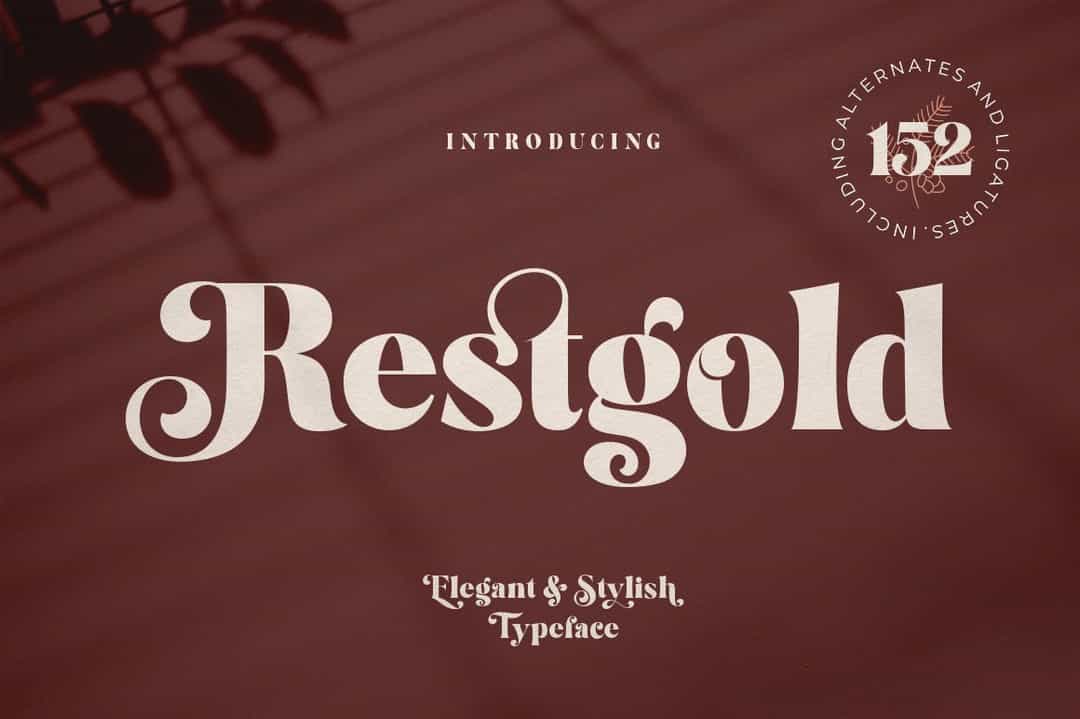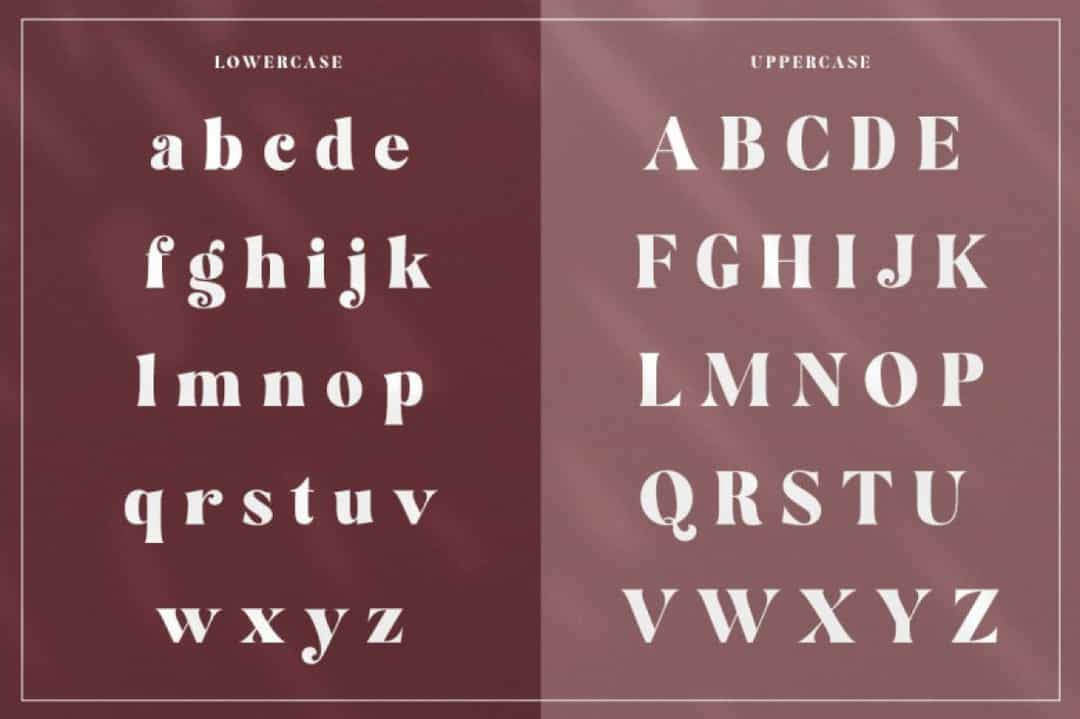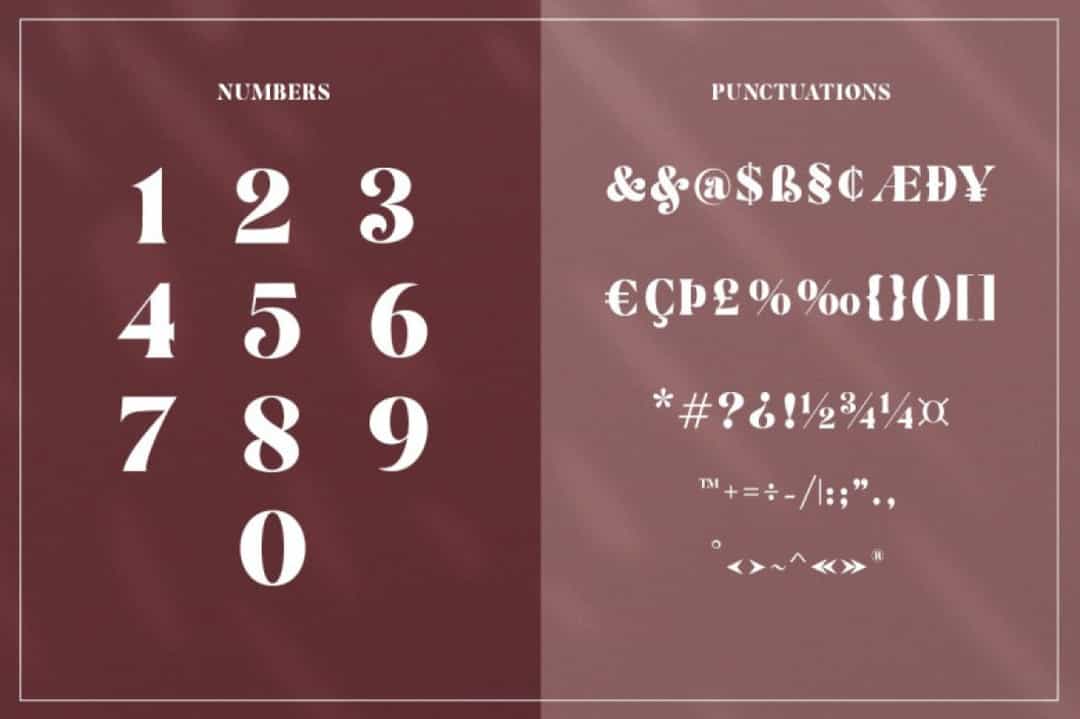
Restgold is an innovative serif typeface with high contrast. This all-inclusive font system can be used for logos, branding projects wedding designs ads packaging for products designs labels posters photography invitations stationery and much more.